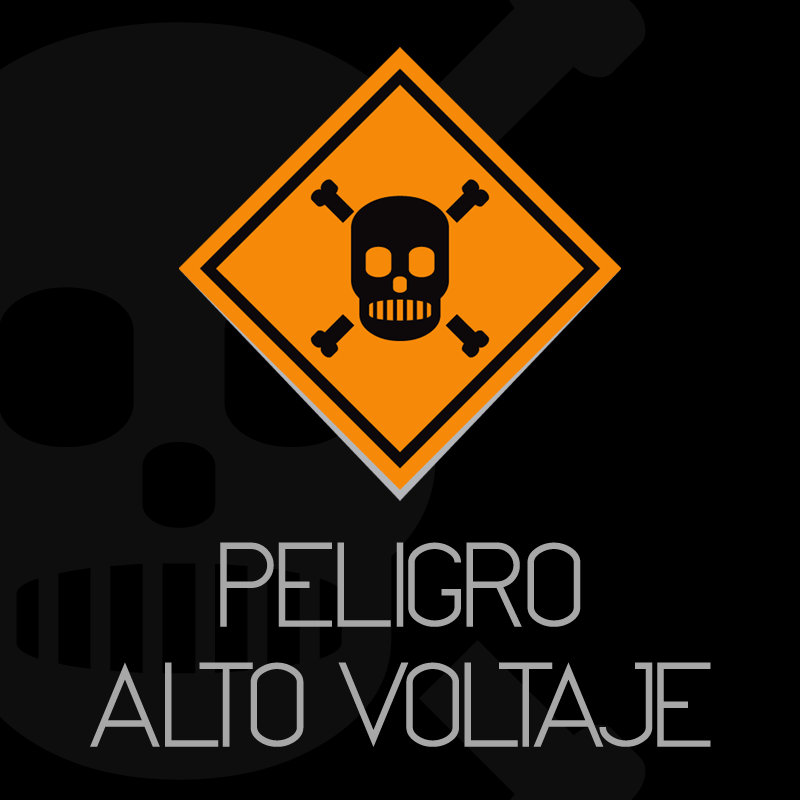
Preview and download Alto Voltaje Font. Created by MuraKnockout Media + Design in Basic Sans serif styles with 100% Free license.
Check out my new Font Blog to stay up to see when I release new fonts! http://murafonts.blogspot.com/ ----------------------- One thing I love about living where I live is that all of the major street signage is completely inconsistent, and sometimes even hand made. I saw a sign on some power lines that read PELIGRO ALTO VOLTAJE with a hilarious looking skull and crossbones, and that is what inspired this font. This is a HIGH VOLTAGE sans serif font for your collection. This font could be used for some nice signage of your own, body type, ad copy, and more! ----------------------- This is free to do with whatever you wish, personal or commercial. Just don't claim ownership, sell it, redistribute it, or be a jerk with it. Please DO NOT download this font and redistribute it on another website!!! It might be cool if you use the font to either credit MuraKnockout Media or Michael Muranaka, or show me how you used it! Enjoy! |